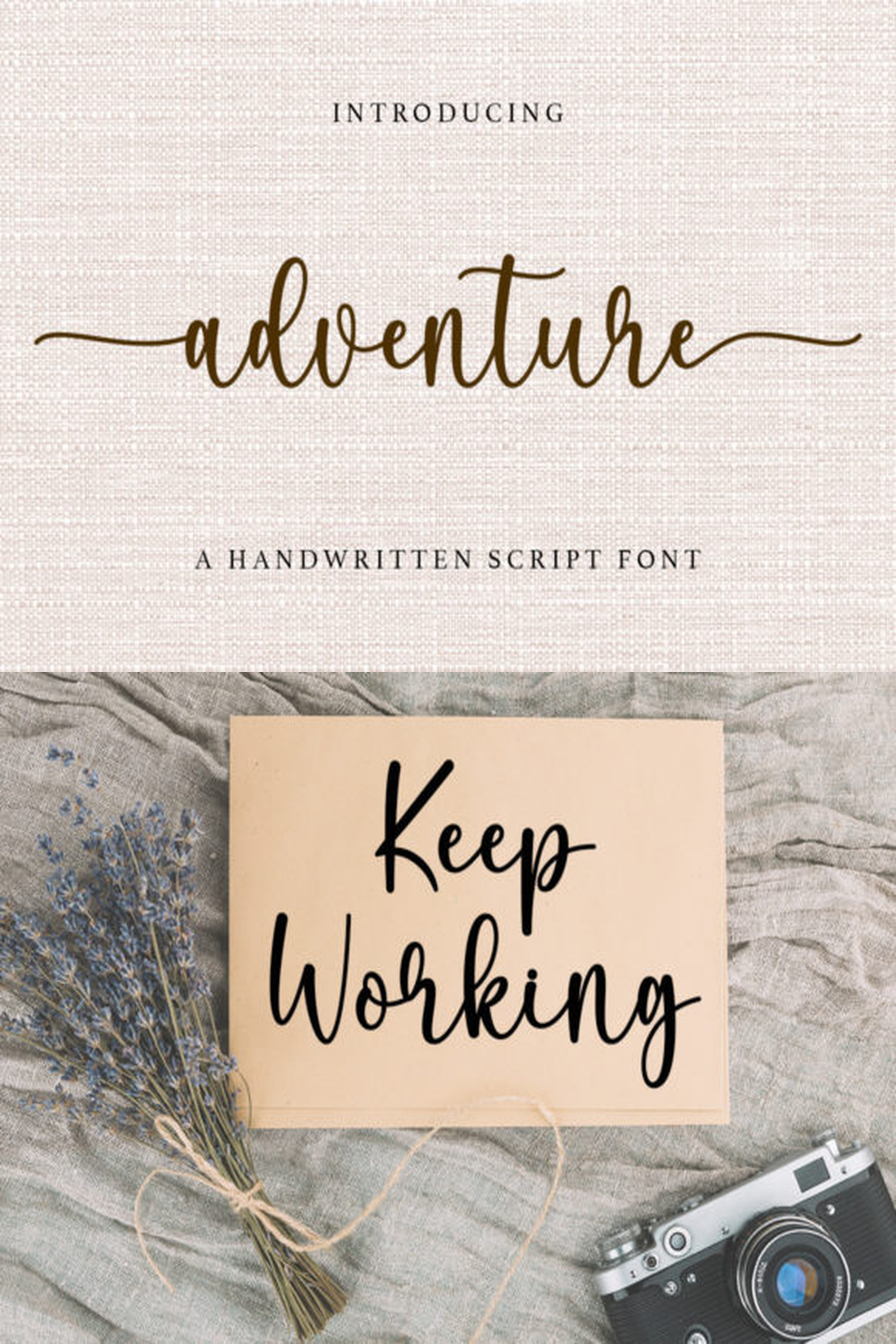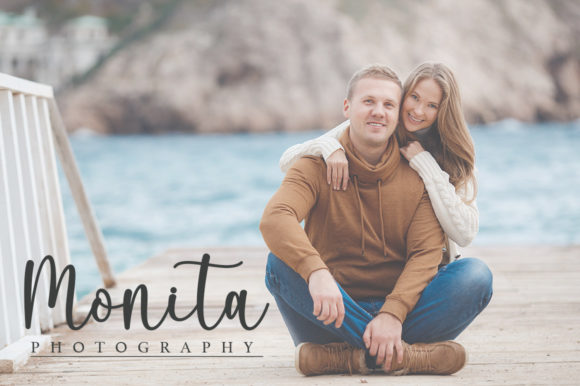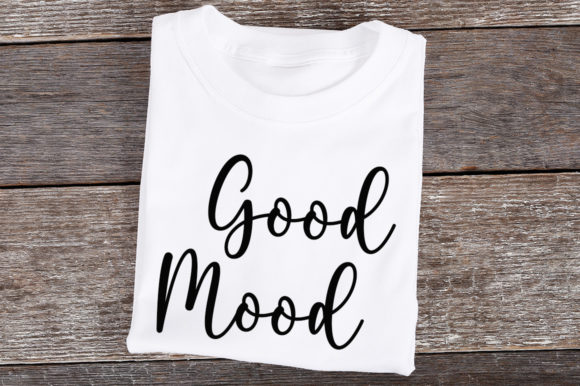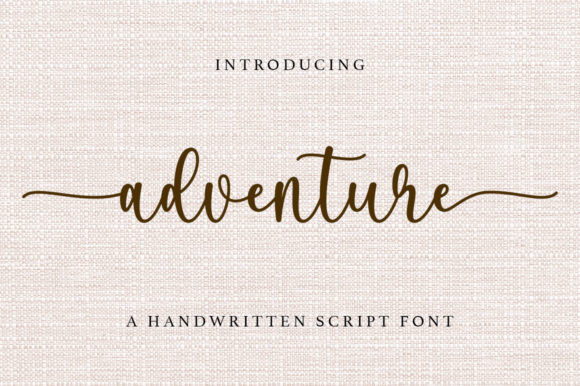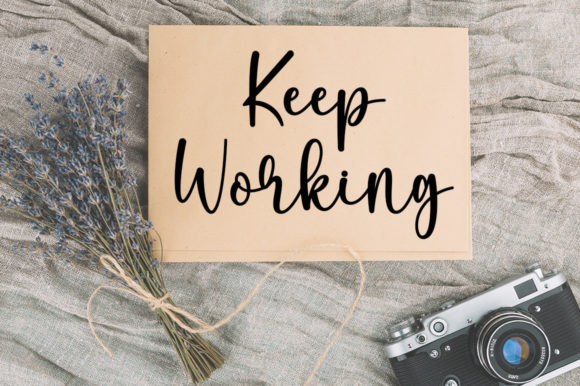
Adventure Font: A Cute Handwritten Font for Wedding & Logo Design
About the Adventure Font
Introducing the Adventure Font, a beautifully crafted typeface designed to elevate your creative projects. Adventure is a flowing handwritten font, described by an elegant touch, perfect for your favorite projects. This font is PUA encoded which means you can access all of the glyphs and swashes with ease.